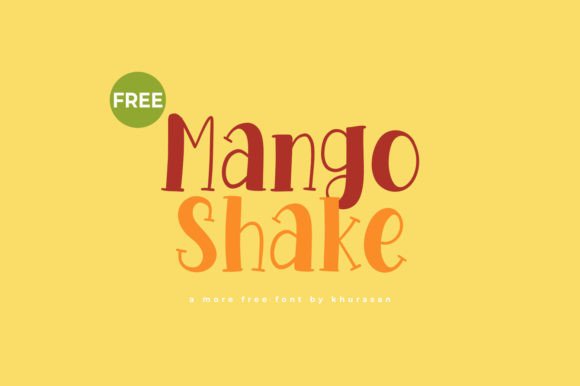
Mango Shake: A Modern Display Font
In the crowded landscape of visual communication, a single typeface can be the difference between a design that gets ignored and one that captures immediate attention. For designers seeking to infuse their projects with personality, charm, and modern flair, Mango Shake offers a unique solution. This modern and cute display font is specifically crafted to elevate posters, logos, magazines, book covers, banners, and many more creative assets. By integrating this distinctive typography into your workflow, you unlock new possibilities for creating lovely designs that resonate with audiences across various platforms.
The Role of Display Typography in Brand Identity
Typography is far more than just selecting letters; it is the voice of your brand. In professional graphic design, the choice of font dictates the tone, mood, and overall perception of a message. While serif and sans-serif fonts often handle body text, display fonts like Mango Shake are essential for headlines and focal points where visual impact is paramount. When used strategically, this font helps establish a strong brand identity, signaling creativity, approachability, and a touch of whimsy without sacrificing professionalism.
For businesses aiming to stand out in digital marketing or print media, the ability to create a memorable visual hierarchy is crucial. Mango Shake provides the necessary weight and character to guide the viewer's eye, ensuring that key messages are not lost in a sea of content. Whether you are designing for a children's book, a trendy cafรฉ menu, or a vibrant social media campaign, this font acts as a powerful tool to enhance user engagement and convey your core values instantly.
Practical Applications Across Design Disciplines
The versatility of Mango Shake makes it an invaluable asset for a wide range of creative projects. Its clean lines and playful curves adapt well to different contexts, allowing designers to maintain consistency while exploring diverse visual styles. Here are some key areas where this font excels:
- Logo Design and Branding: A logo needs to be scalable and memorable. Mango Shake works exceptionally well for brands targeting younger demographics or those in the lifestyle, food, and entertainment sectors. It adds a human touch to corporate identities, making them feel more accessible.
- Social Media Graphics: In the fast-paced world of Instagram and TikTok, visuals must stop the scroll. Using this font for overlay text on images or videos creates a striking contrast that boosts click-through rates and shares.
- Packaging and Editorial Design: From snack packaging to magazine headers, the font brings energy to static layouts. It complements bold color palettes and illustrative elements, creating a cohesive and attractive product presentation.
- Web and UI Design: While readability is key for body text, using Mango Shake for hero sections or call-to-action buttons can significantly improve UX by drawing attention to critical interactions.
Optimizing Your Design Workflow with Mango Shake
To get the most out of any creative asset, understanding how to pair and apply it effectively is essential. When incorporating Mango Shake into your projects, consider the principles of balance and contrast. Because it is a display font, it should generally be reserved for headlines, titles, or short phrases rather than long paragraphs. Overusing it can clutter the design and reduce its visual impact.
Pairing this font with a neutral, highly readable sans-serif or a classic serif for body copy creates a harmonious composition. This combination ensures that the design remains legible while still retaining its unique character. Additionally, pay close attention to spacing and kerning. The rounded nature of the letters requires careful adjustment to ensure they sit comfortably together, especially at larger sizes used in banners or billboards.
Color also plays a pivotal role in maximizing the potential of Mango Shake. Since the font exudes a fresh and fruity vibe, it pairs beautifully with warm tones like oranges, yellows, and pinks, as well as soft pastels. However, do not shy away from high-contrast combinations like black and white or deep navy and bright coral to make the typography pop against complex backgrounds.
Evaluating Impact and Consistency
As you integrate Mango Shake into your design system, always evaluate its performance against your specific goals. Does it align with your target audience's expectations? Is it legible across different devices and print sizes? A successful design strategy relies on consistency; once you adopt this font for a brand, use it consistently across all touchpoints to reinforce recognition.
Whether you are a freelance designer building a portfolio or a marketing team launching a new campaign, the right typography can transform a good idea into a great reality. Mango Shake is more than just a downloadable file; it is a catalyst for creativity that encourages designers to experiment with layout, color, and form. By choosing quality creative assets and applying them with intention, you ensure that your work not only looks beautiful but communicates effectively, leaving a lasting impression on your audience.